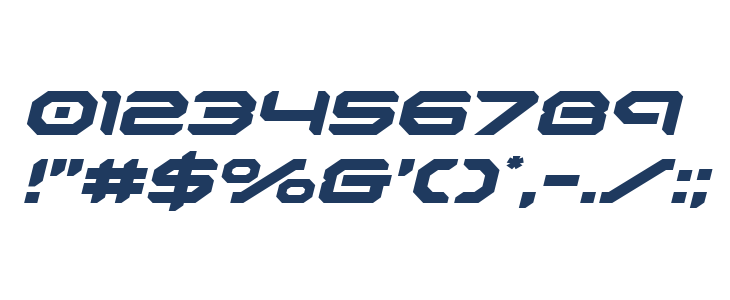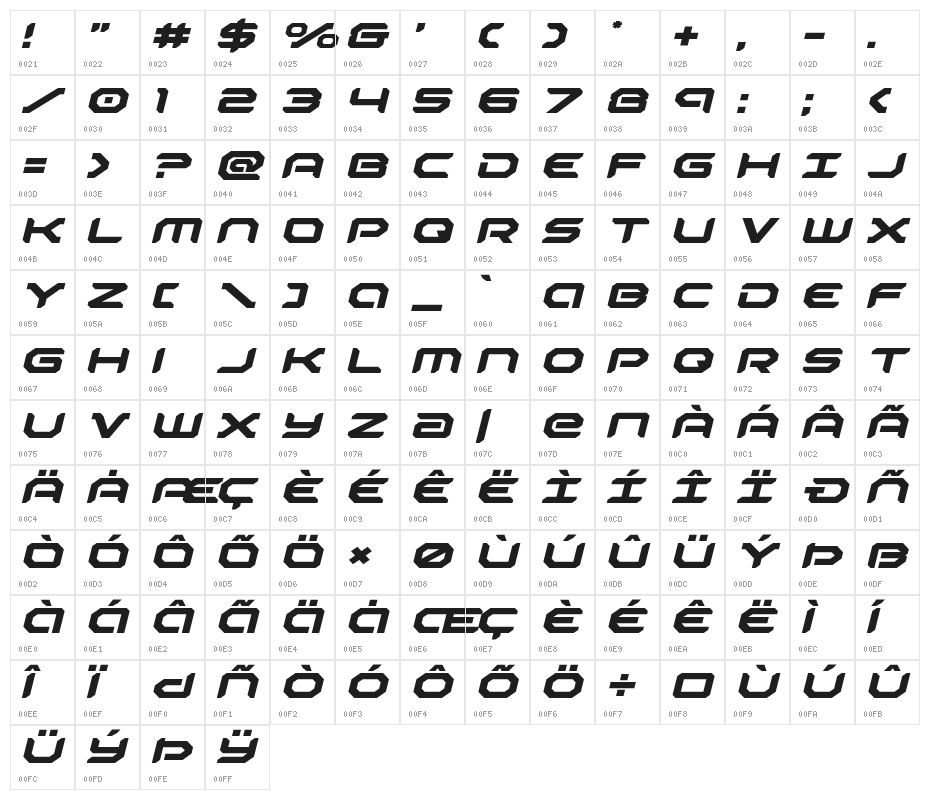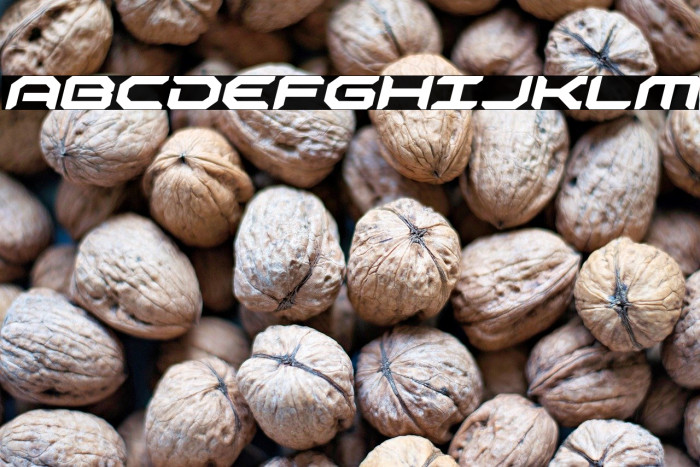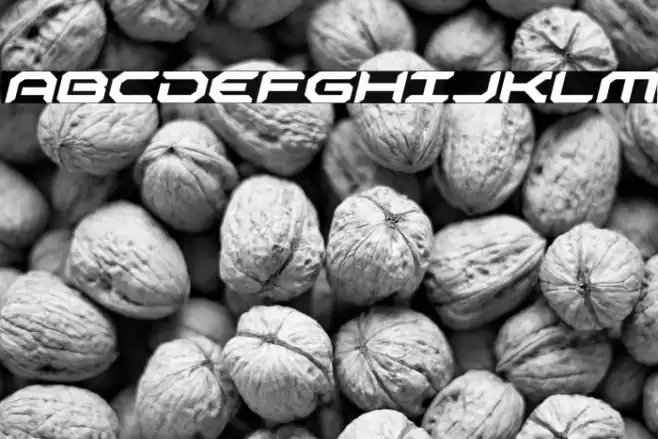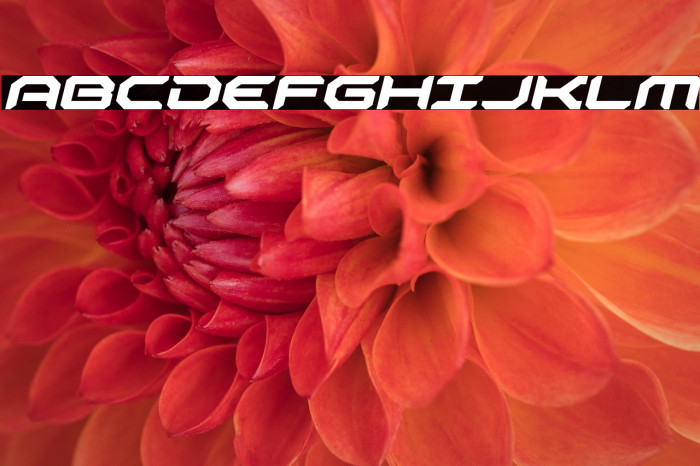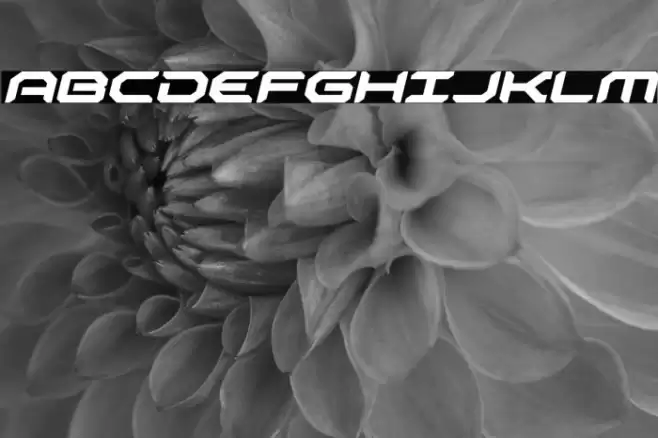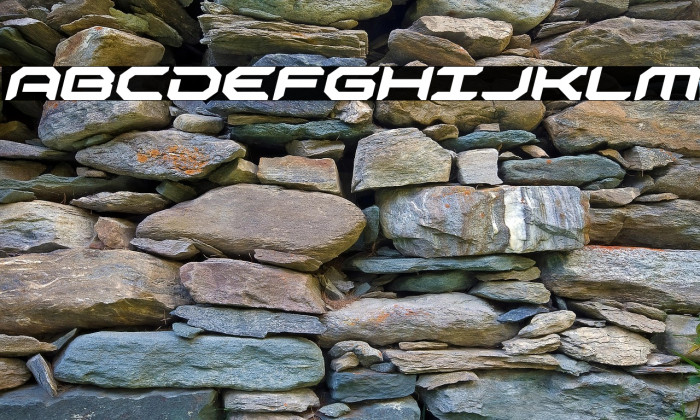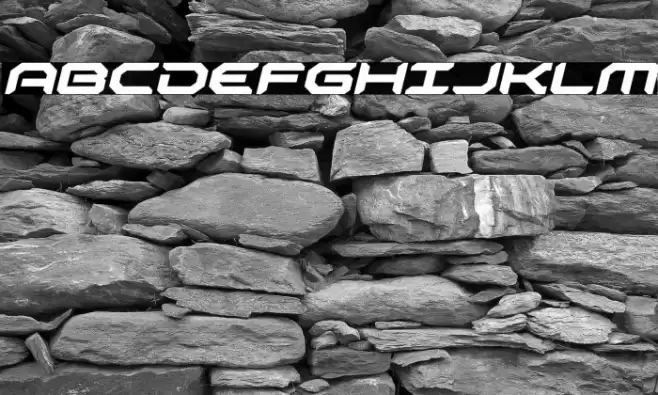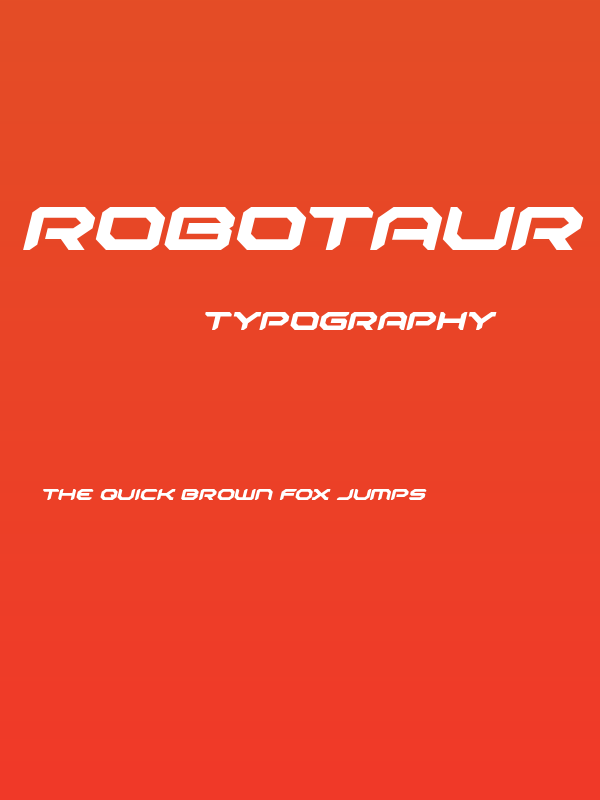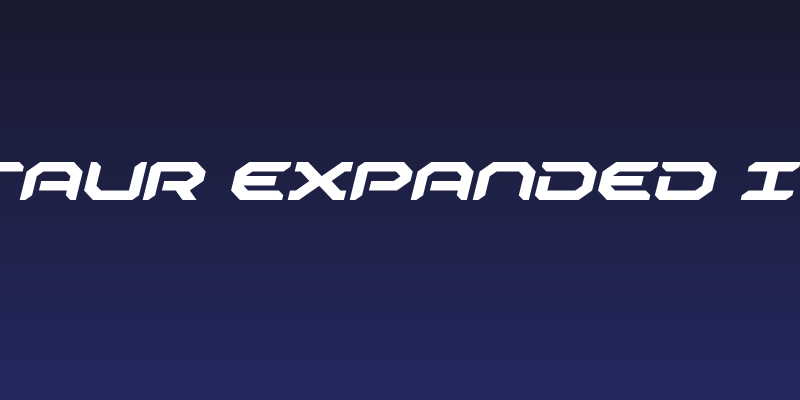
Robotaur Expanded Italic Font
Robotaur Expanded Italic Description
This font features a futuristic and dynamic design, characterized by its expanded and italicized form. The letters are bold and angular, with sharp edges and a geometric structure that conveys a sense of speed and modernity. The uppercase and lowercase letters maintain a consistent style, while the numerals and special characters complement the overall aesthetic. The font's expanded width gives it a commanding presence, making it ideal for attention-grabbing headlines or branding that requires a contemporary and edgy look.